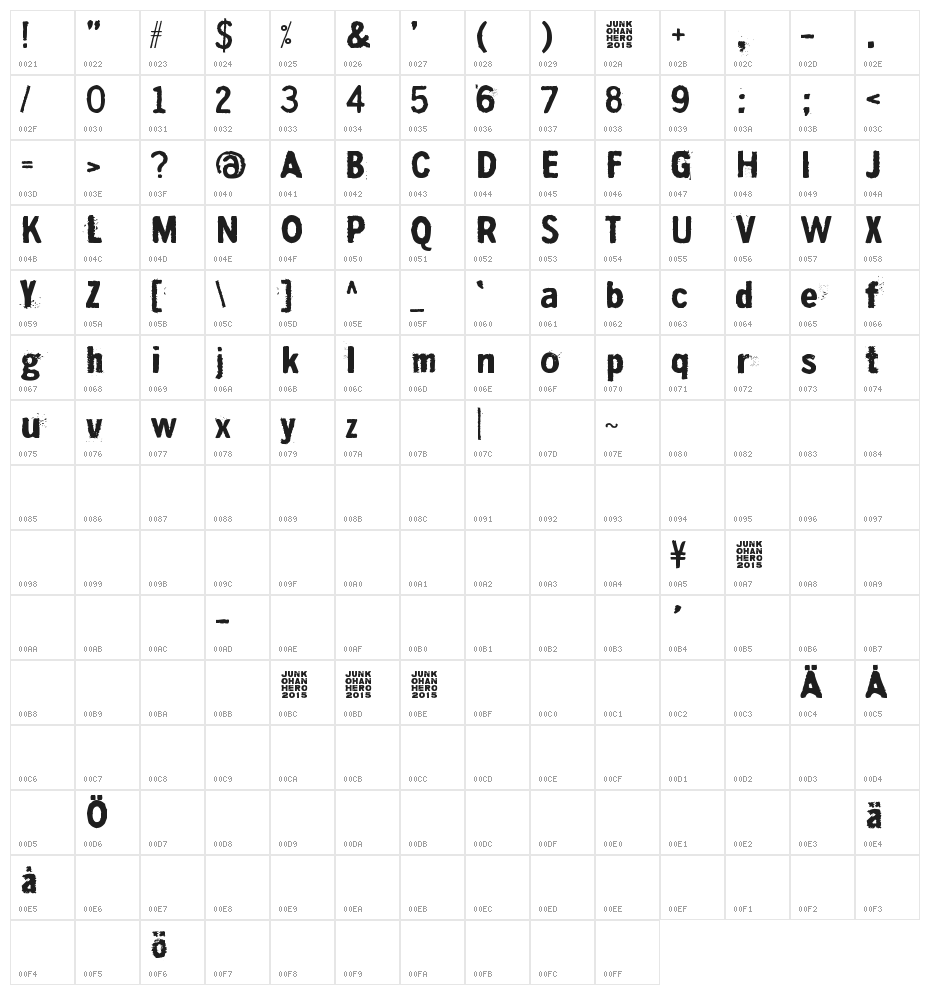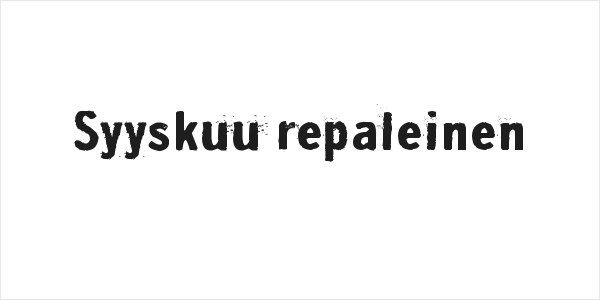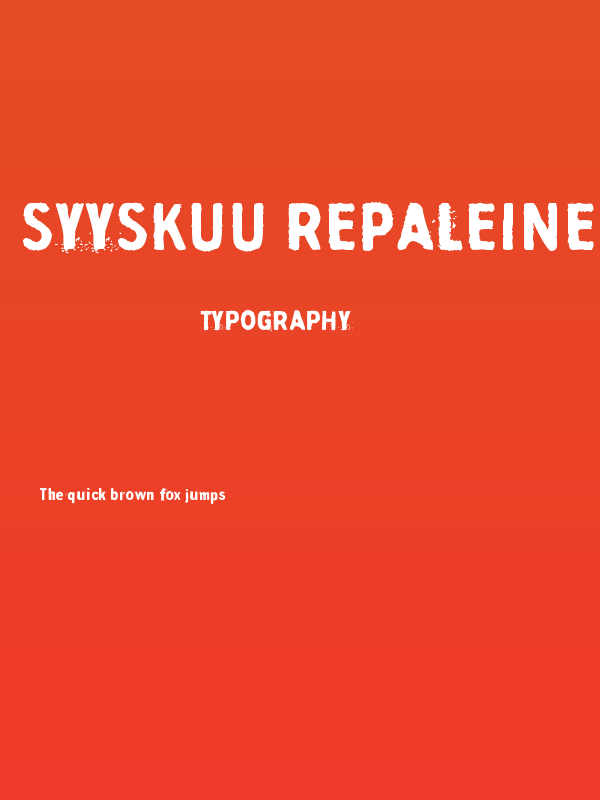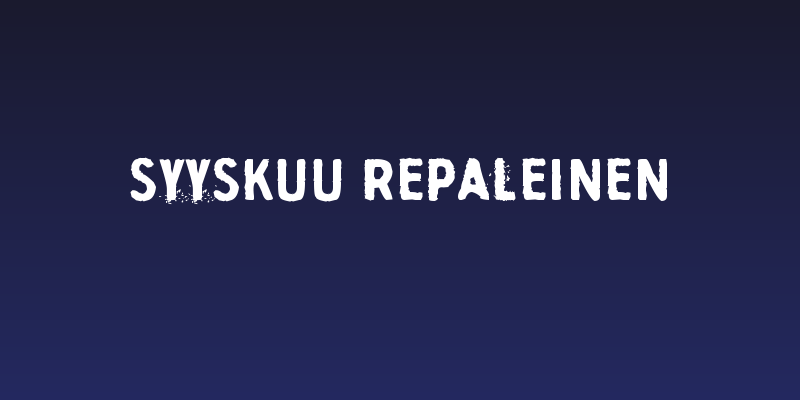
Syyskuu repaleinen Font
Syyskuu repaleinen Description
This font features a distressed, grunge style with a bold and rugged appearance. The characters are designed with irregular edges and a textured look, giving them a worn and weathered feel. The uppercase and lowercase letters maintain a consistent style, with a slightly condensed form that enhances their boldness. The numerals and special characters follow the same distressed aesthetic, making them suitable for projects that require a raw and edgy look. The overall design is impactful and eye-catching, ideal for creating a strong visual statement.
| Overall Style | Grunge, Urban, Distressed |
| Proposed Projects | Ideal for album covers, posters, streetwear branding, and any project seeking a gritty, urban vibe. |